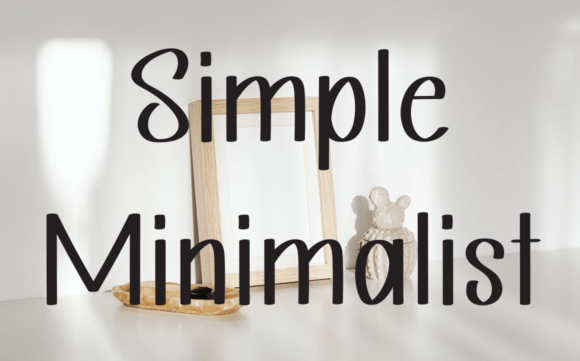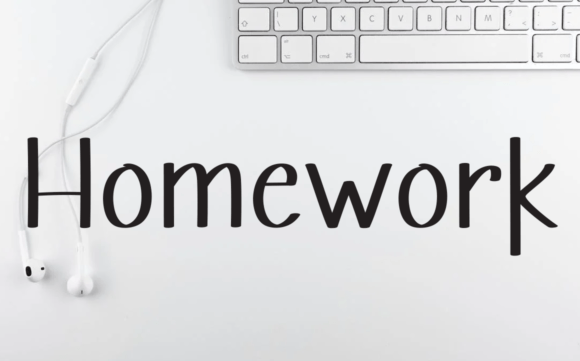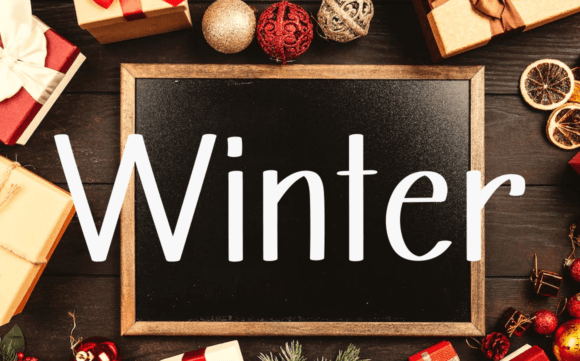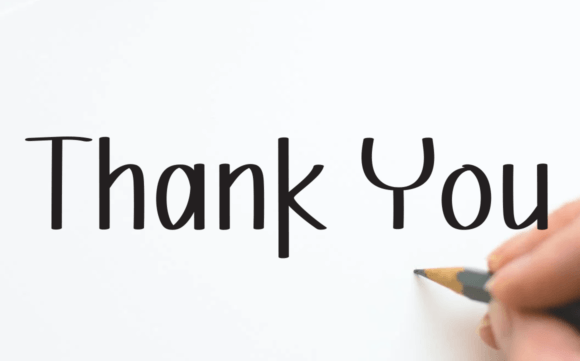
Introducing Christmas House Font: A Fun and Casual Handwritten Delight
Are you looking for a font that captures the essence of the holiday season? Look no further than Christmas House Font, a fun and casual handwritten font that’s perfect for adding a touch of festive flair to your designs. In this article, we’ll dive into the world of Christmas House Font, exploring its features, versatility, and uses, making it a must-have for designers and crafters alike.
What is Christmas House Font?
Christmas House Font is a delightful handwritten font that’s been carefully crafted to bring a sense of joy and whimsy to your designs. With its casual and friendly vibe, this font is ideal for creating festive and fun projects that showcase your creativity. Whether you’re designing holiday cards, gift tags, or social media graphics, Christmas House Font is sure to add a dash of holiday cheer to your work.
Key Features of Christmas House Font
- Handwritten style: Christmas House Font boasts a charming handwritten style that’s perfect for creating personalized and unique designs.
- Versatile: This font is incredibly versatile, making it suitable for a wide range of design ideas, from holiday projects to everyday applications.
- Easy to read: Despite its playful nature, Christmas House Font remains easy to read, ensuring that your message is conveyed clearly and effectively.
- Scalable: This font is highly scalable, allowing you to use it in various design contexts, from small icons to large headlines.
Uses for Christmas House Font
So, what can you create with Christmas House Font? The possibilities are endless! Here are some ideas to get you started:
- Holiday cards and invitations: Create festive and fun holiday cards, invitations, and gift tags that showcase your personality and style.
- Social media graphics: Add a touch of holiday cheer to your social media graphics, including Facebook posts, Instagram stories, and Twitter headers.
- Branding and packaging: Use Christmas House Font to create eye-catching branding and packaging designs that stand out from the crowd.
- Crafting projects: Incorporate Christmas House Font into your crafting projects, such as scrapbooking, journaling, and paper crafting.
Tips for Using Christmas House Font
To get the most out of Christmas House Font, here are some tips to keep in mind:
- Pair with complementary fonts: Combine Christmas House Font with complementary fonts to create visual interest and hierarchy in your designs.
- Experiment with colors: Try out different color schemes to find the perfect match for your design and the holiday season.
- Don’t be afraid to get creative: Christmas House Font is a versatile font that can be used in a variety of contexts, so don’t be afraid to experiment and try new things.